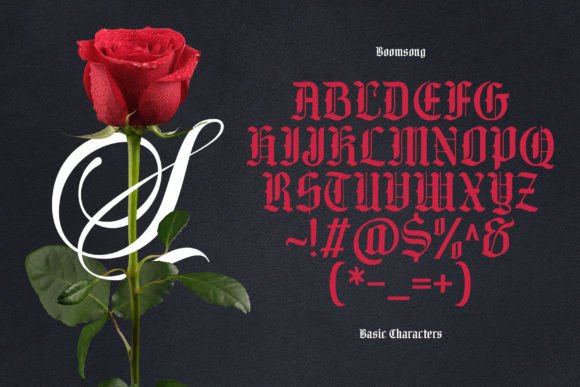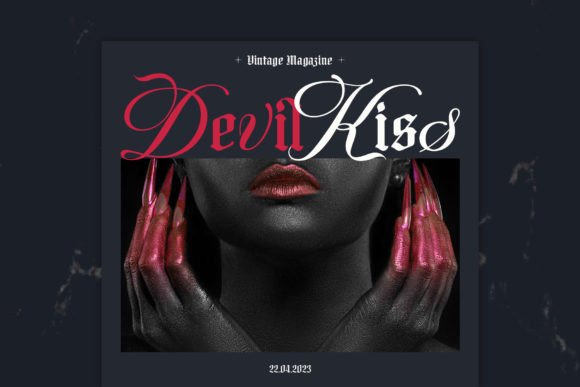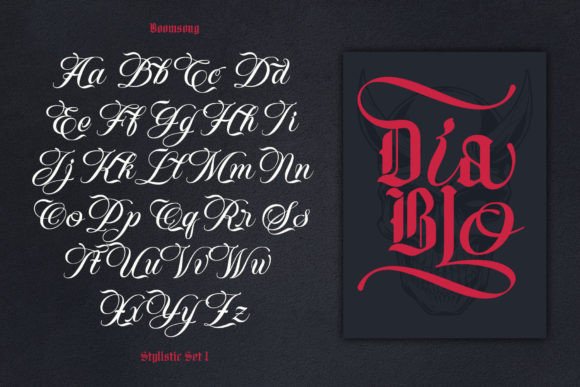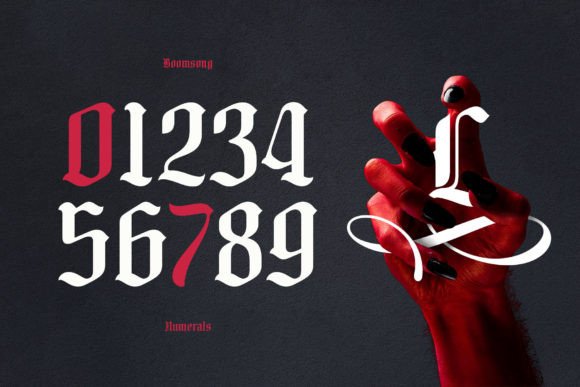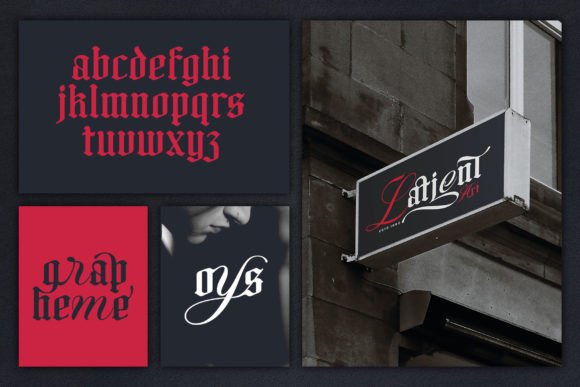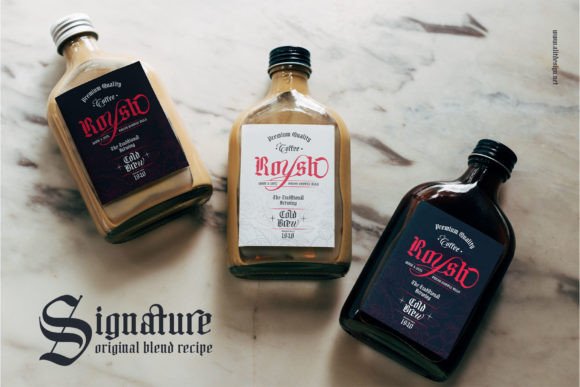
Introducing BOOMSONG: A Stunning Font that Redefines Elegance and Boldness
In the world of typography, fonts play a crucial role in conveying the tone and personality of a design. For designers and crafters, finding the perfect font that combines elegance and boldness can be a daunting task. However, with the introduction of BOOMSONG, a stunning font that fuses the beauty of blackletter and the sophistication of script styles, the search is over.
A Unique Blend of Blackletter and Script Styles
BOOMSONG is a masterpiece that brings together the best of two worlds, creating a perfect balance between boldness and refinement. This font features a unique mix of blackletter and script styles, making it an exceptional addition to any design project. The bold and dramatic strokes of blackletter typography are effortlessly merged with the fluid and elegant lines of script typography, resulting in a font that exudes both power and sophistication.
Customizable and Versatile
One of the standout features of BOOMSONG is its extensive range of alternates and ligatures. This allows designers to create custom lettering that stands out and captures the eye. With BOOMSONG, you can experiment with different combinations of letters and symbols to create a unique look that reflects your brand or design style. Additionally, the font supports PUA encoding, ensuring that you can access all glyphs and symbols, even in non-standard software.
Perfect for Projects that Require Beauty and Sophistication
BOOMSONG is ideal for projects that demand a touch of elegance and refinement. Whether you’re working on a branding campaign, designing invitations, or creating book covers, this font is sure to impress. Its concept of “beauty in the dark” adds an intriguing element to your designs, making them stand out from the rest. With BOOMSONG, you can add a level of sophistication and drama to your designs that will leave a lasting impression on your audience.
Multilingual Support
In today’s global design landscape, multilingual support is essential. BOOMSONG understands this need, offering support for multiple languages. This makes it a versatile font that can be used for various purposes, from corporate branding to personal projects. Whether you’re designing for a local or international audience, BOOMSONG has got you covered.
Unlocking the Full Potential of BOOMSONG
To unlock the full potential of BOOMSONG, it’s essential to understand its features and capabilities. Here are some tips to get you started:
- Experiment with different alternates and ligatures to create custom lettering that reflects your brand or design style.
- Use BOOMSONG’s extensive range of swashes to add a touch of elegance and sophistication to your designs.
- Take advantage of the font’s multilingual support to create designs that cater to a global audience.
- Use BOOMSONG in combination with other fonts to create a unique and visually appealing design.
BOOMSONG is a game-changing font that redefines the boundaries of elegance and boldness. Its unique blend of blackletter and script styles, combined with its extensive range of alternates and ligatures, makes it an exceptional addition to any design project. With its multilingual support and technical versatility, BOOMSONG is the perfect font for designers and crafters who want to create stunning designs that stand out from the rest. So why wait? Unlock the full potential of BOOMSONG and take your designs to the next level.